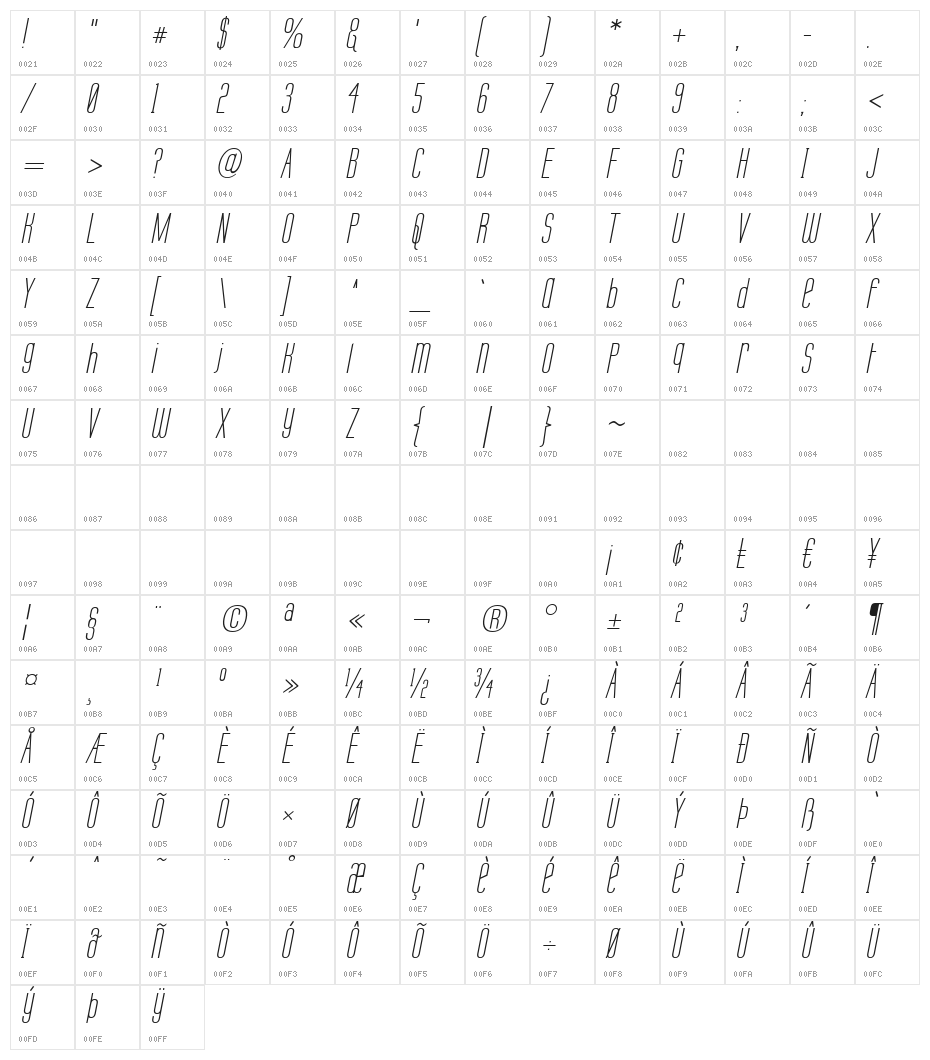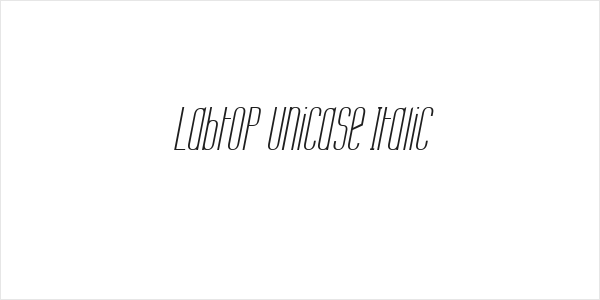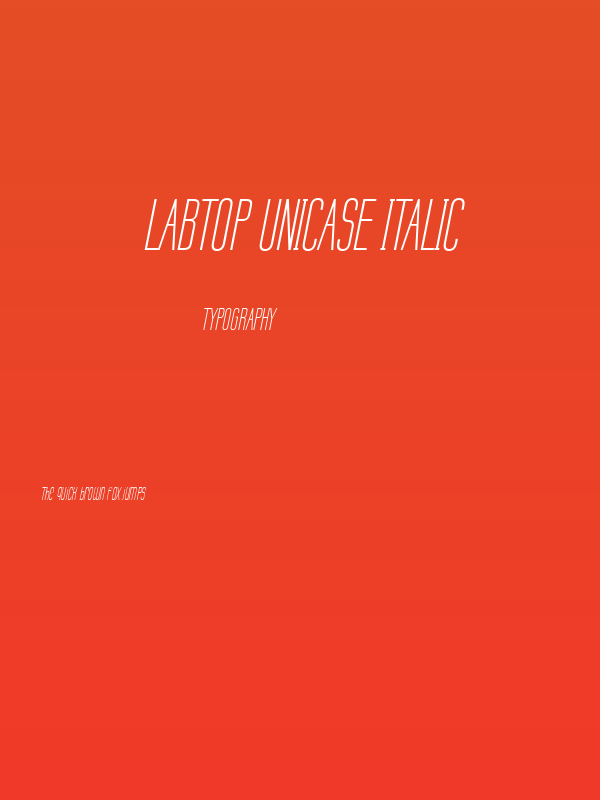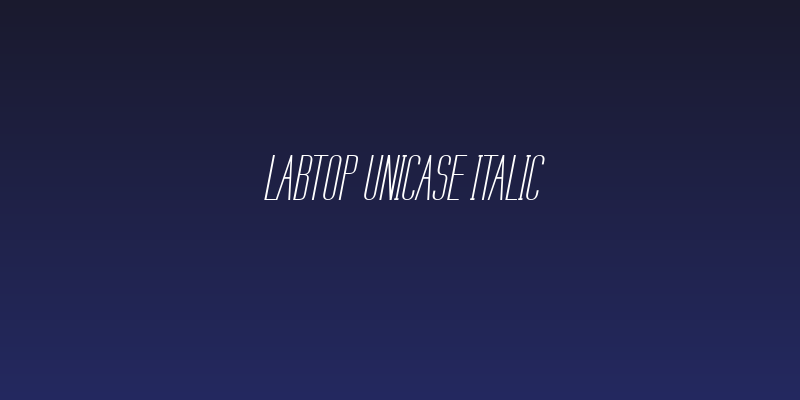
Labtop Unicase Italic Font
Labtop Unicase Italic Description
This font features a sleek, elongated design with a distinctly modern flair. The characters are narrow and tall, giving it a condensed appearance. The italic style adds a dynamic and forward-leaning aspect, enhancing its contemporary look. The strokes are consistent in width, providing a uniform and clean aesthetic. The font maintains a high level of legibility despite its unique style, making it suitable for various design applications. The special characters and numbers are designed to match the overall style, ensuring cohesion across all elements.
| Proposed Projects | Ideal for fashion magazines, modern branding, and dynamic posters. |